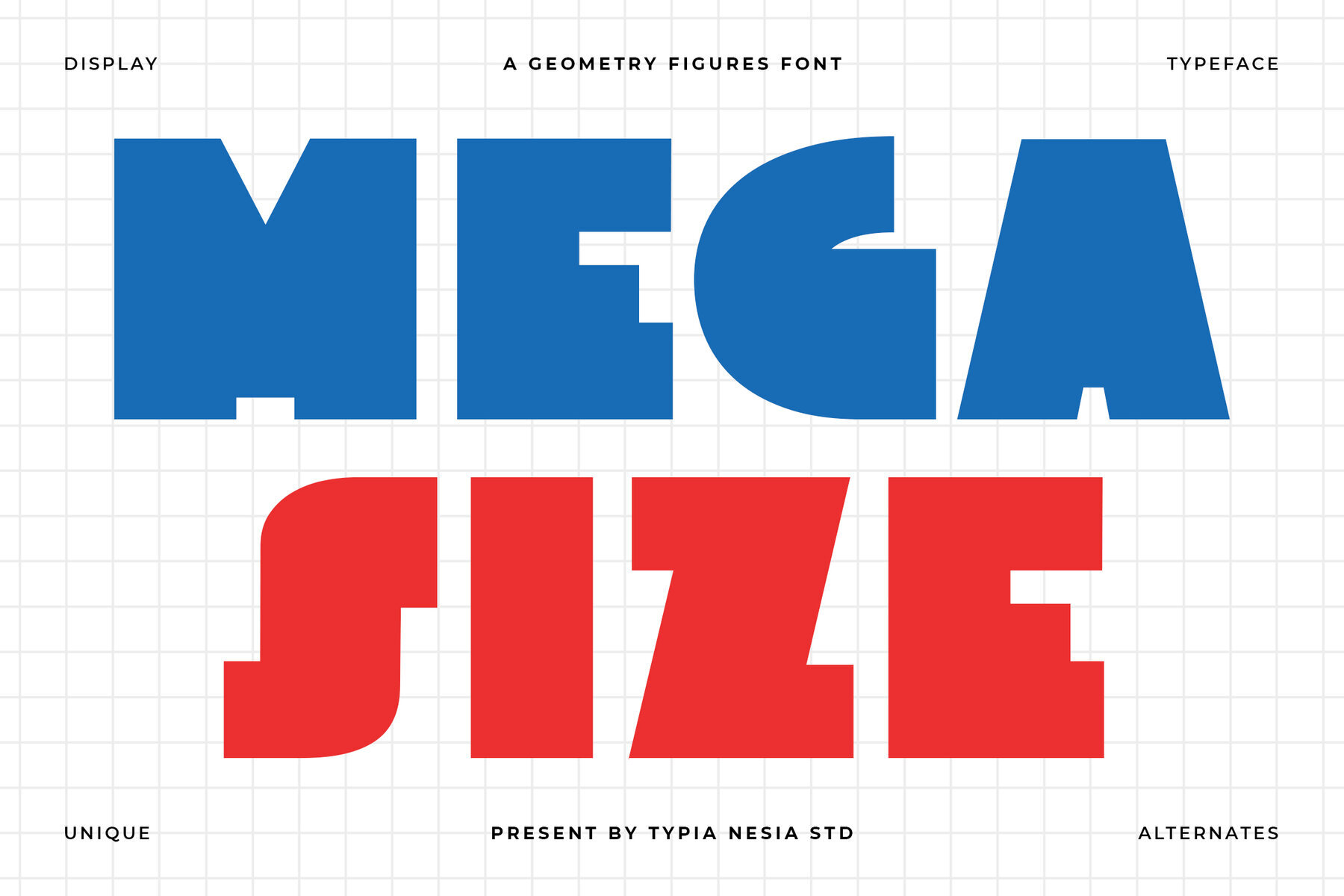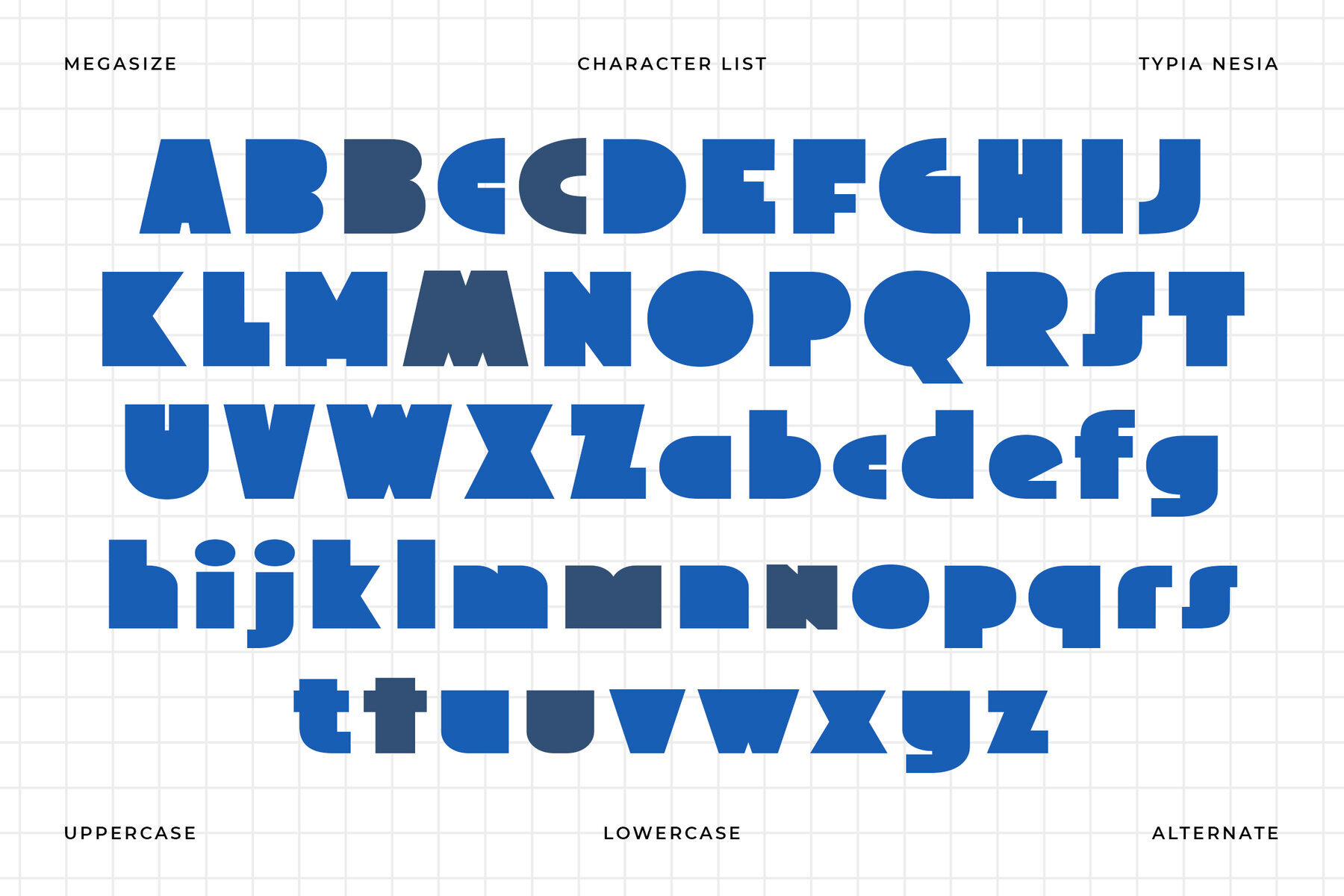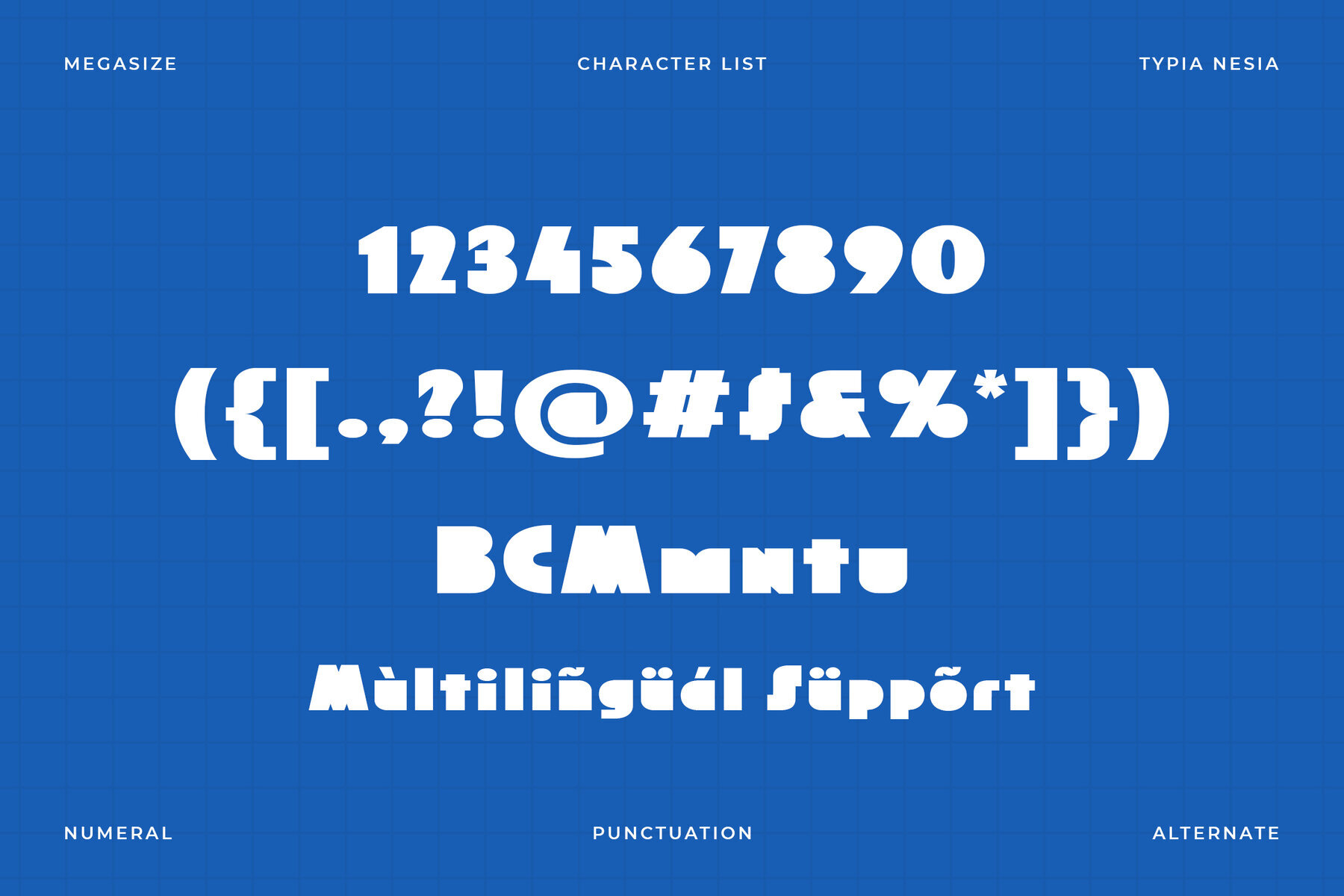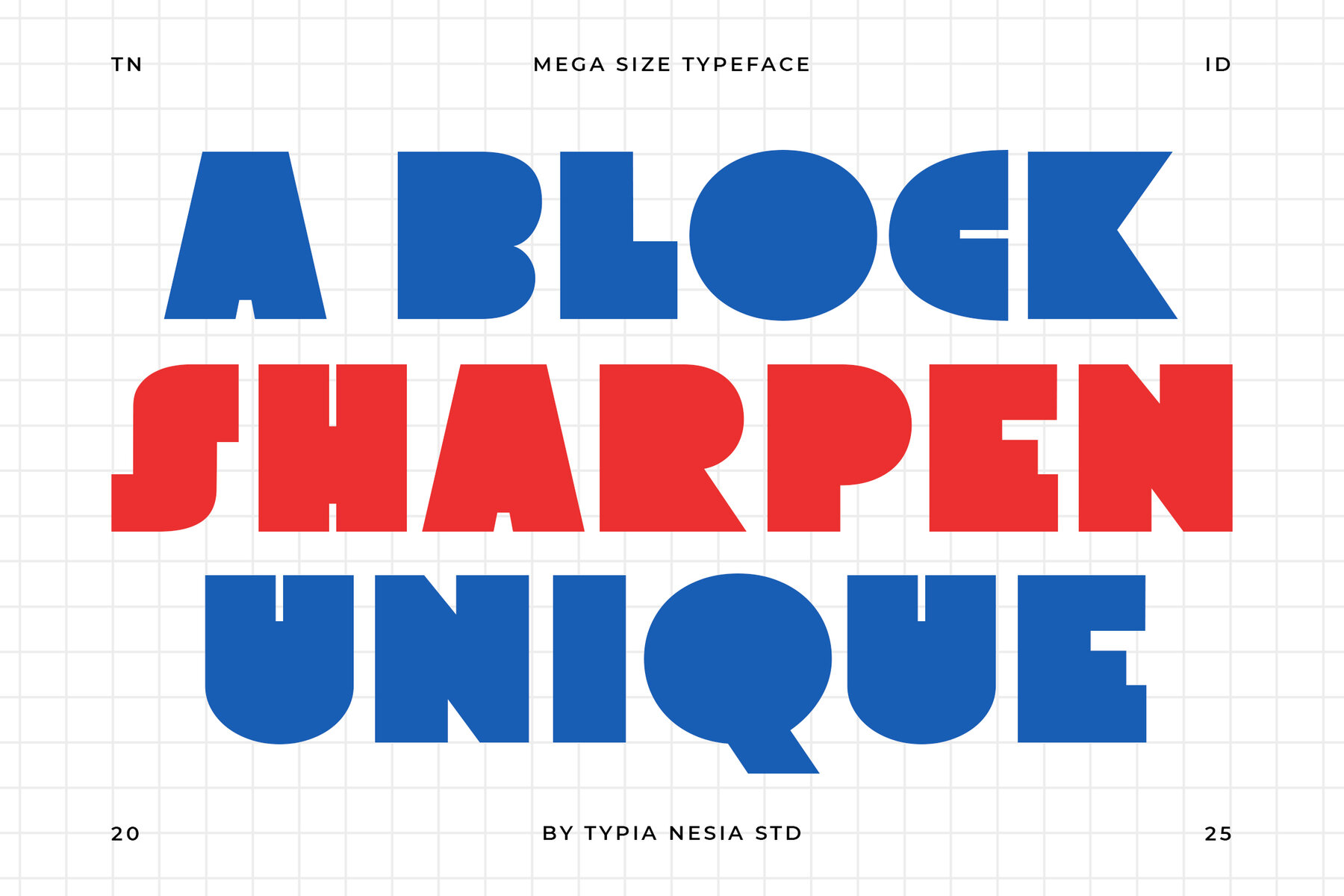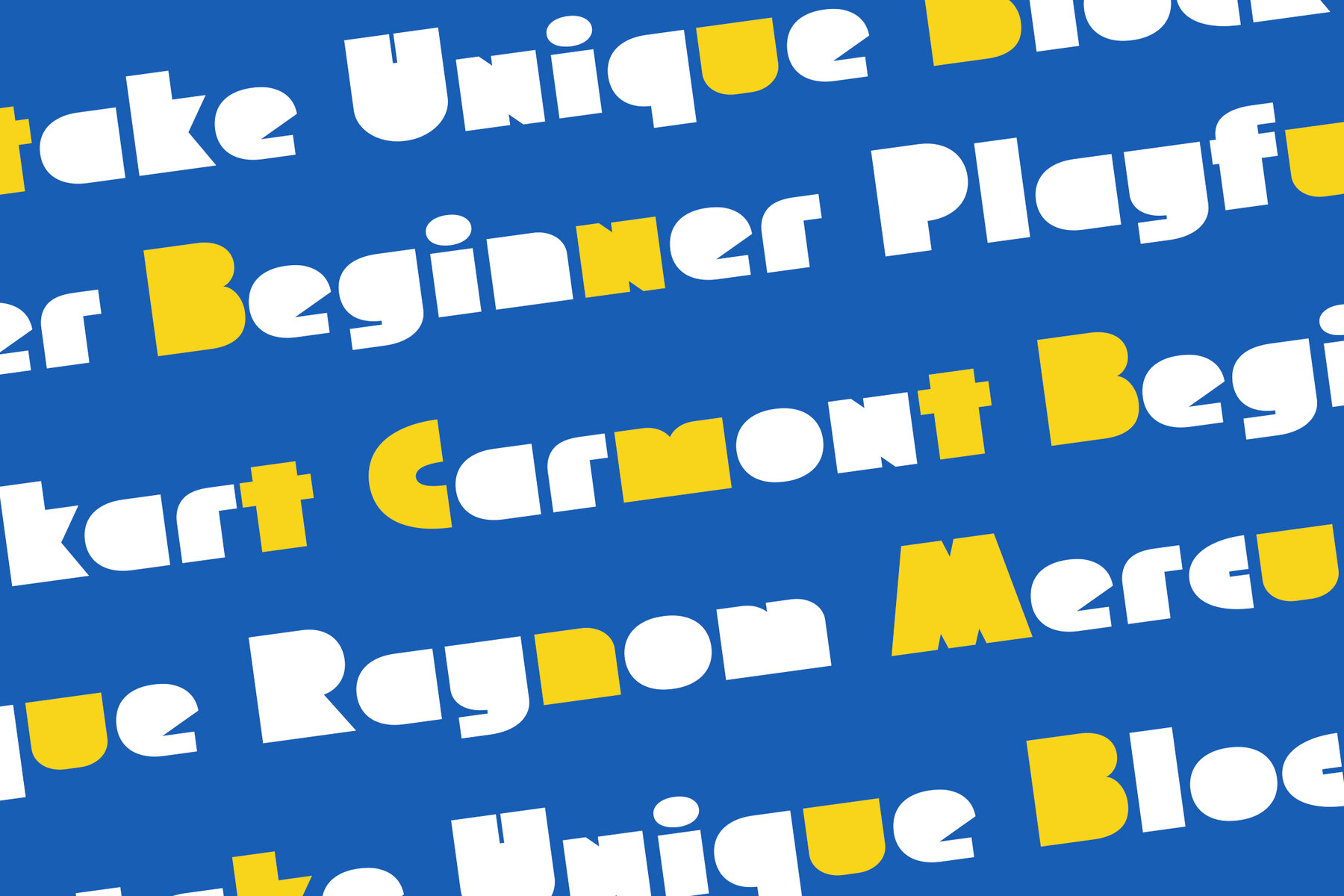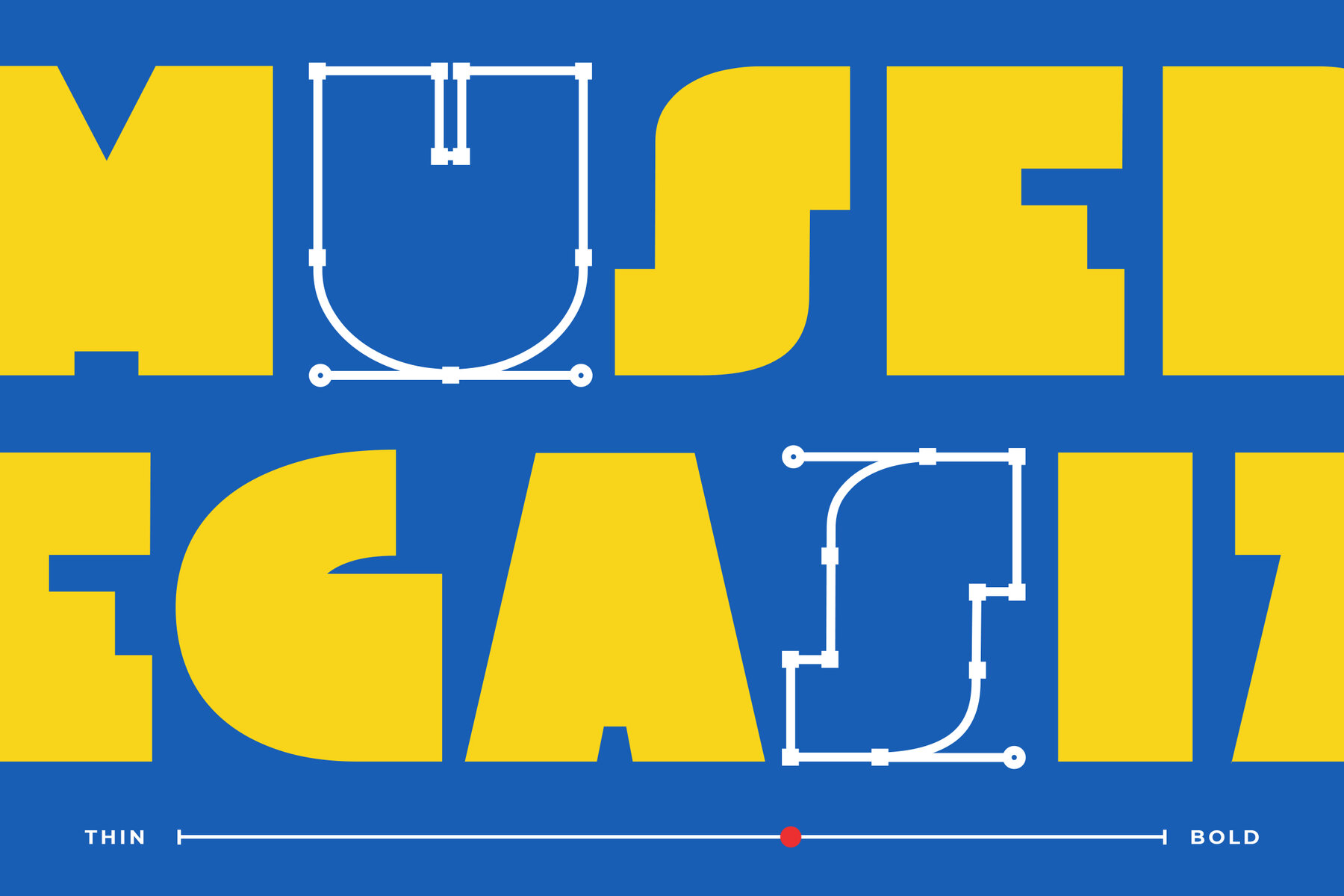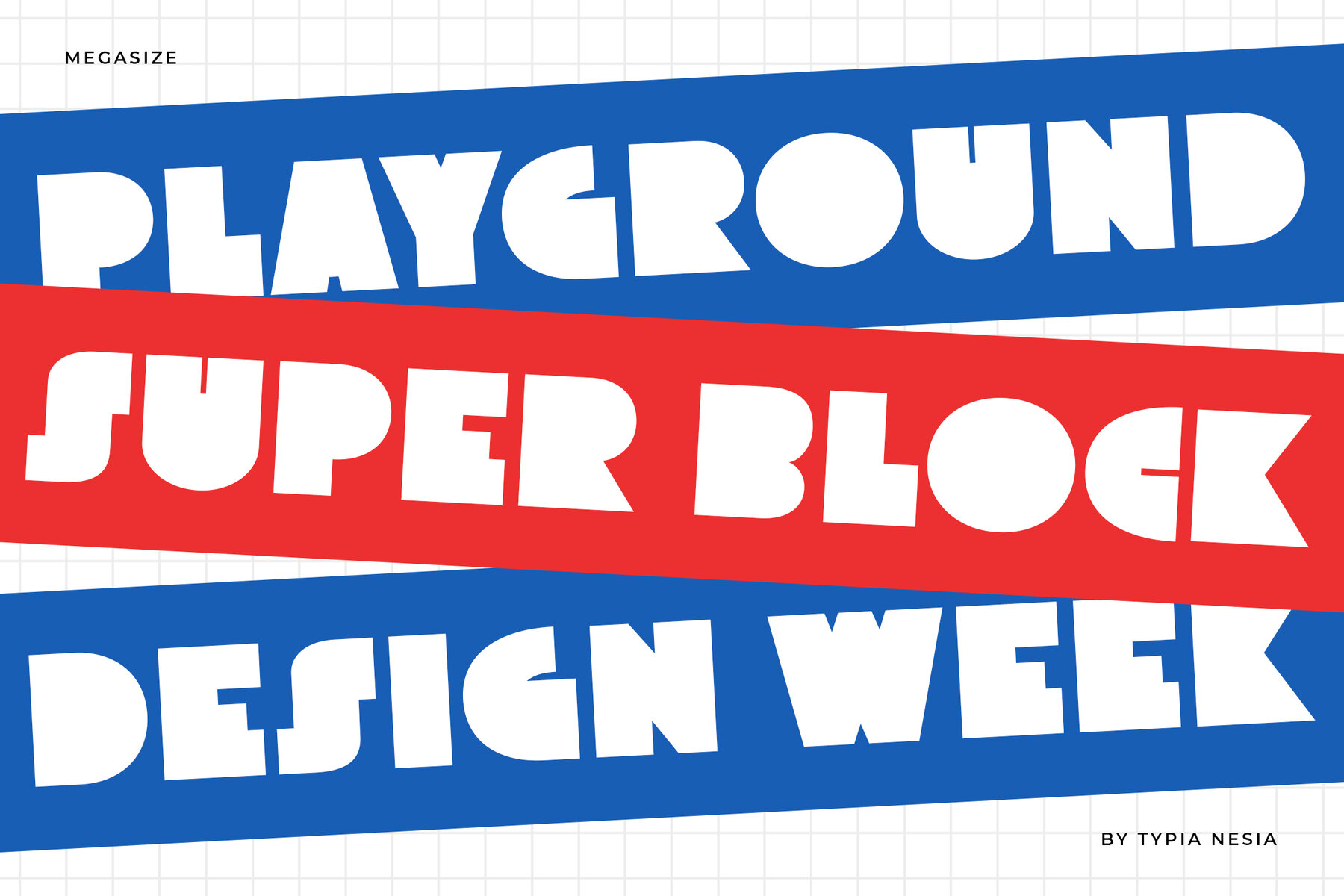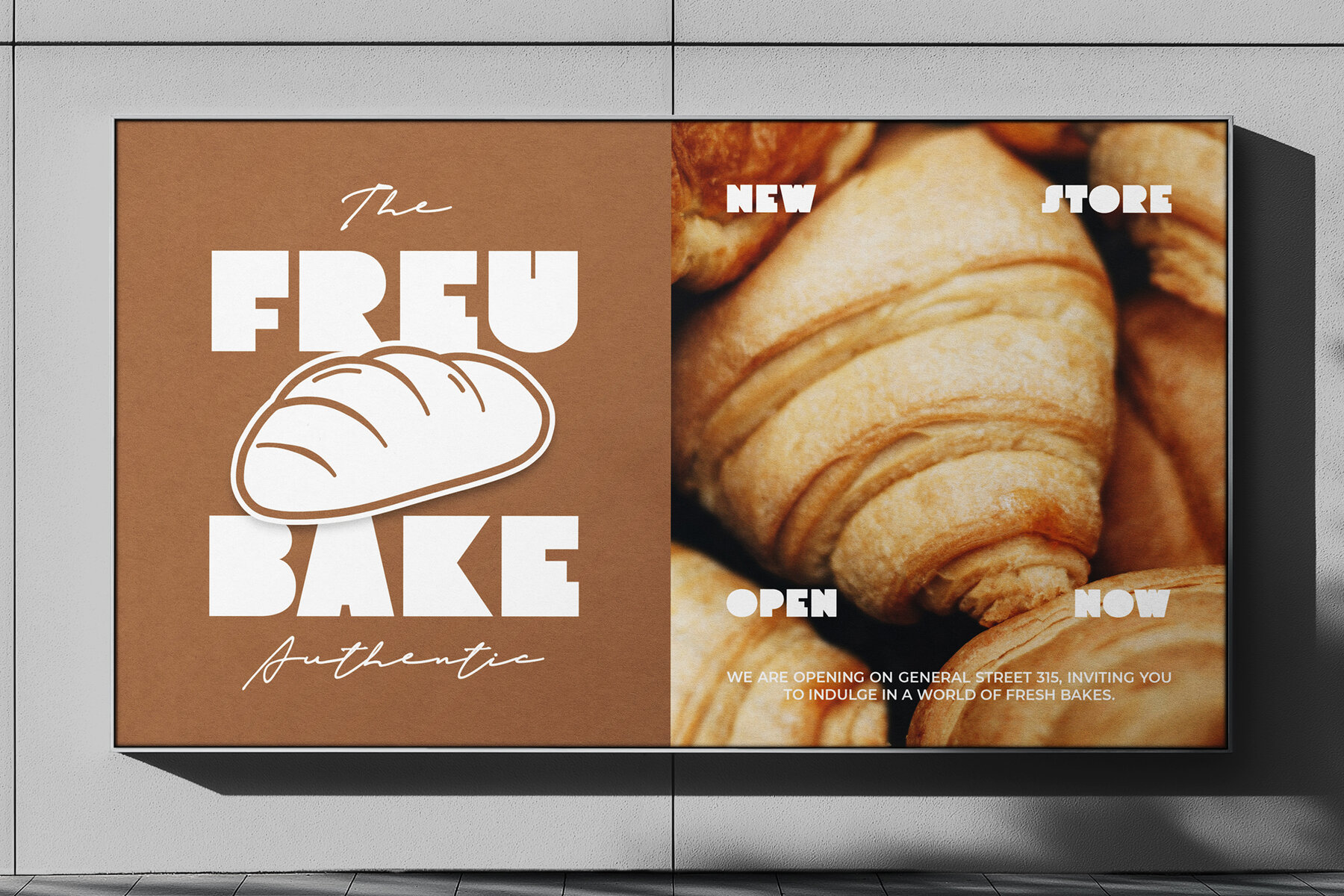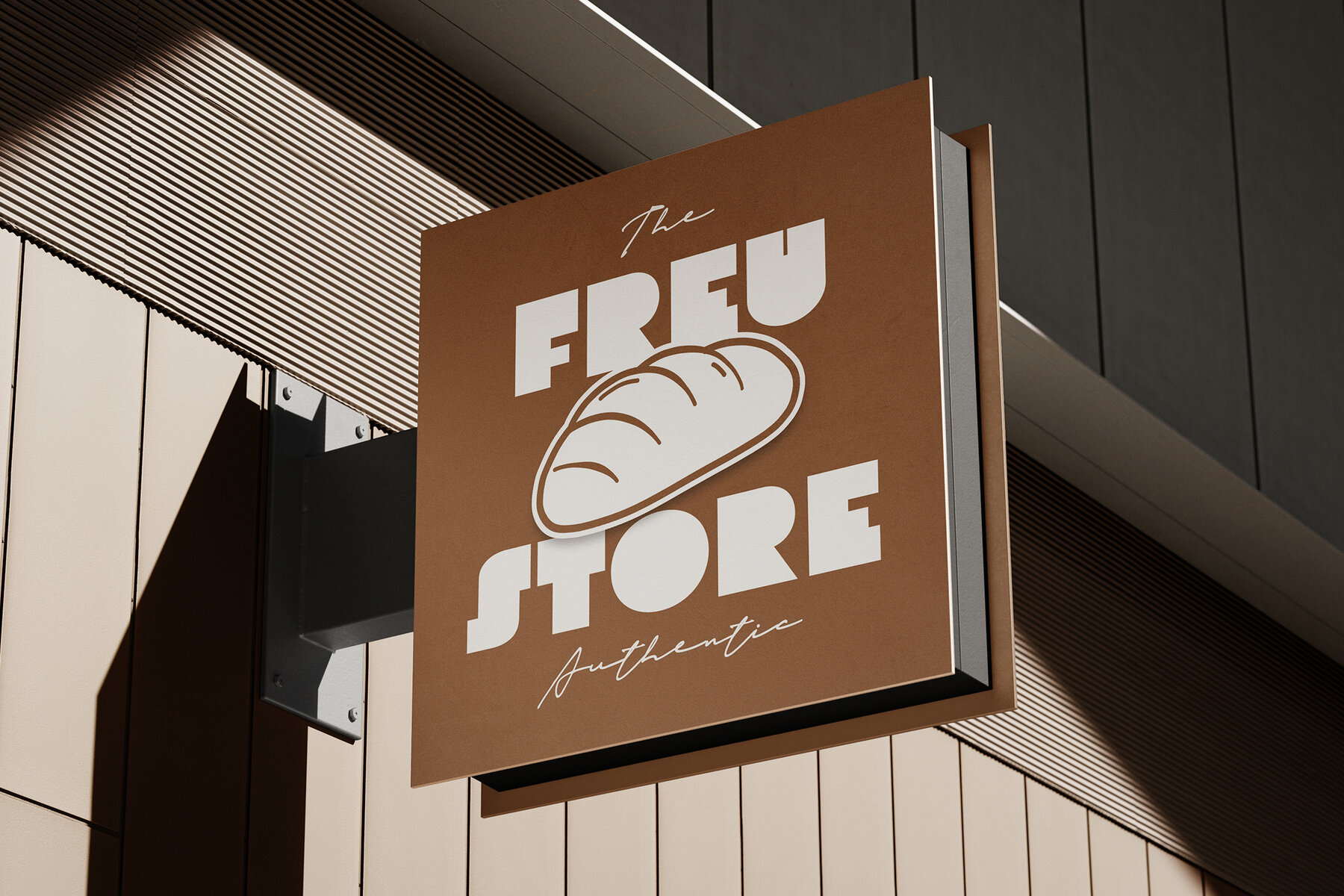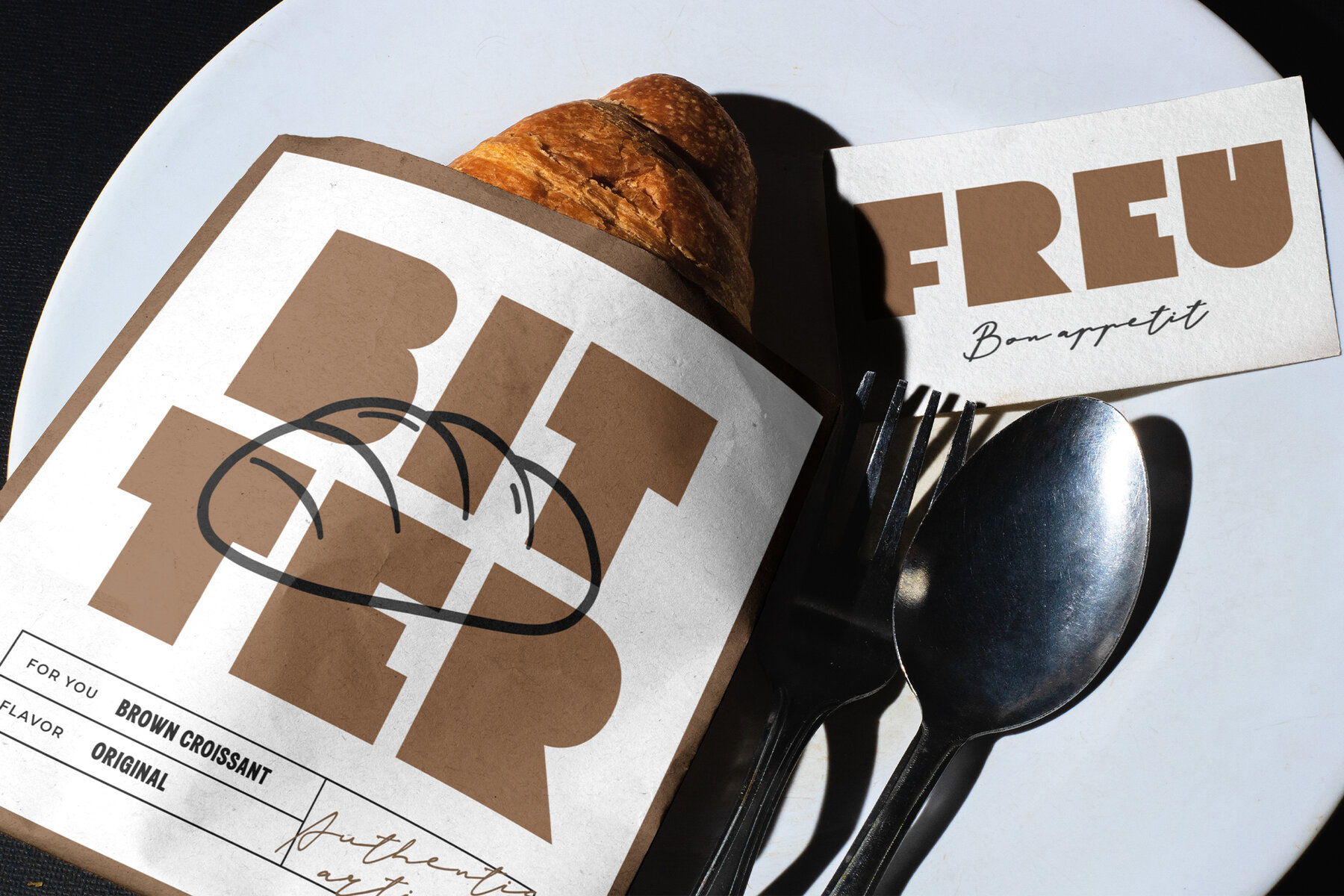
Mega Size Font
Mega Size Regular
The Megasize font embodies boldness and modernity. Its robust, geometric figures make it an excellent choice for headlines, logos, posters, and packaging. This sans-serif typeface infuses a touch of playfulness into any project, from advertising campaigns to merchandise, providing a visually striking presence. Each character in Megasize is precisely designed to deliver a strong and legible appearance, even at larger sizes, making it perfect for designs that need to capture attention. Ideal for graphic designers seeking to make a statement, Megasize ensures your message is unmistakable.Megasize: Bold Geometric Display Typeface